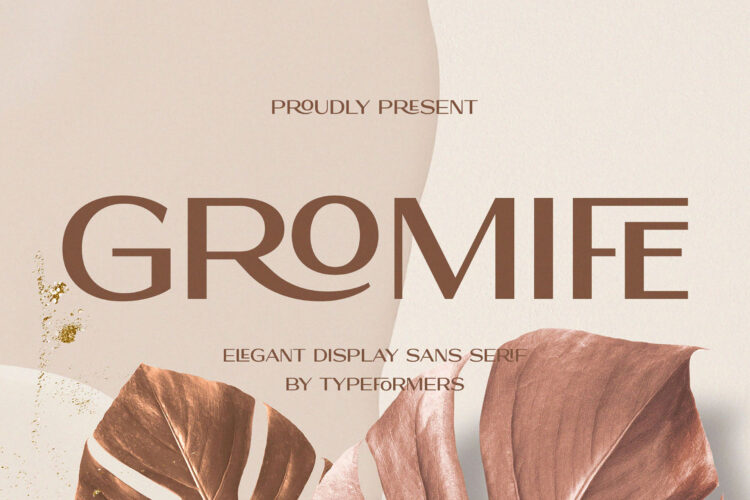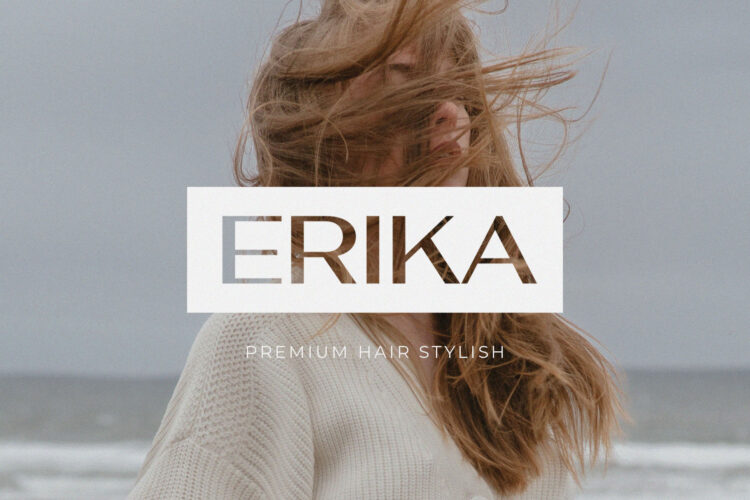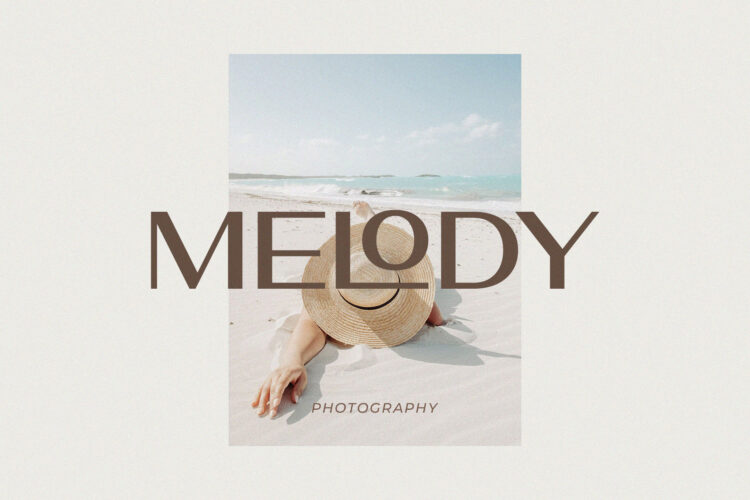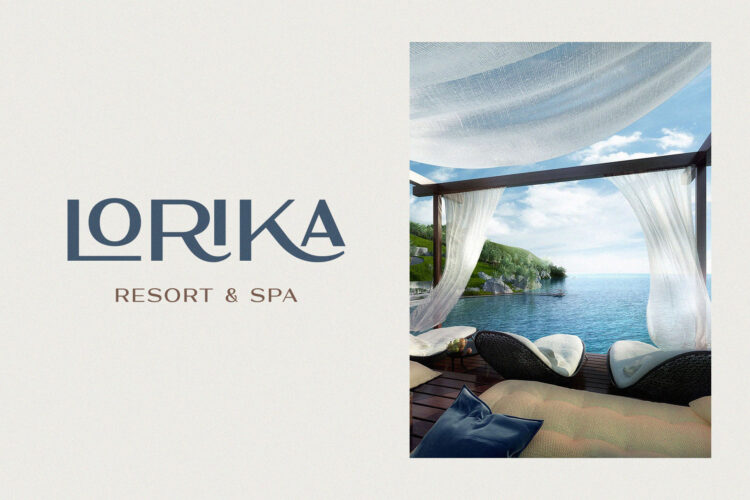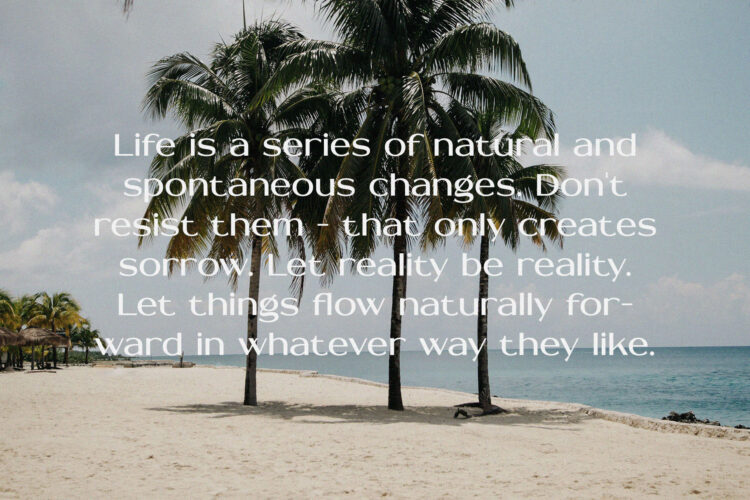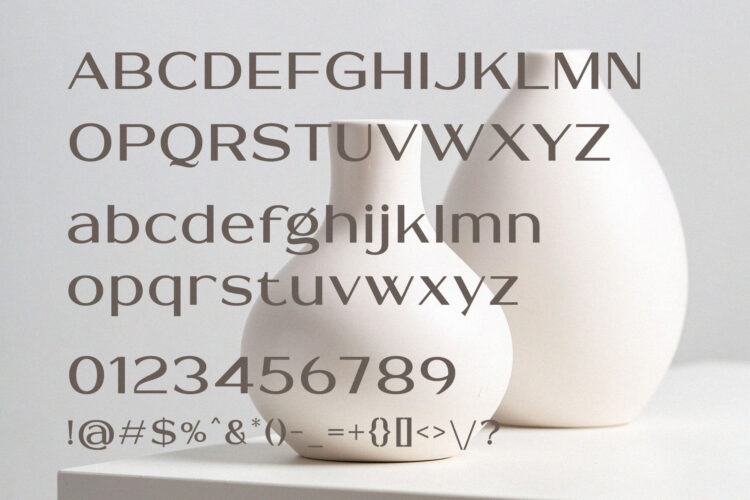
Introducing Gromife – Elegant Display Sans Serif.
Gromife is a modern and simple font, best used as a display for headings, logos, branding, magazines, product packaging and invitations.